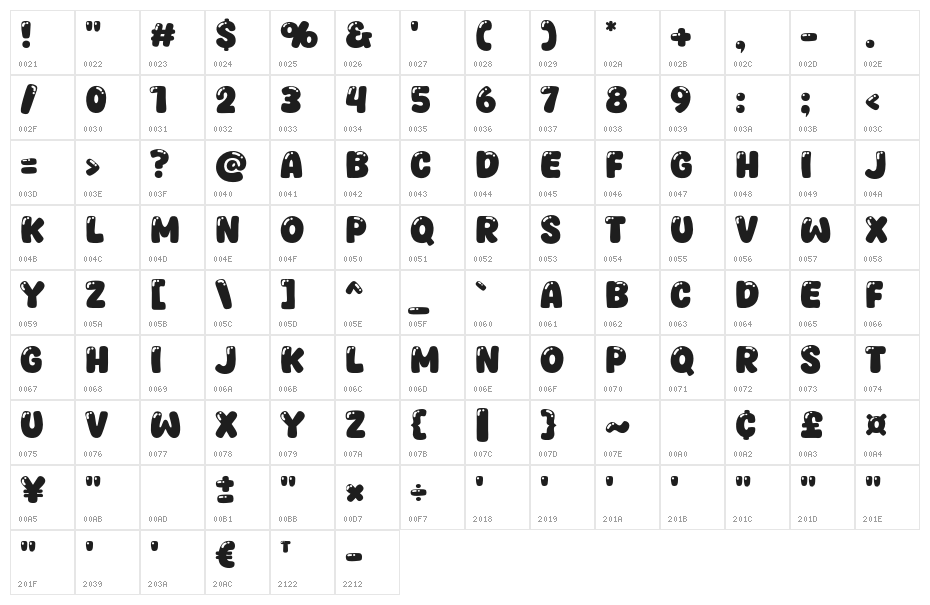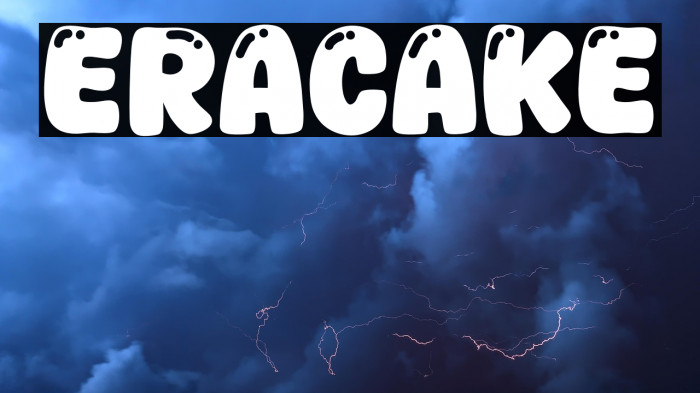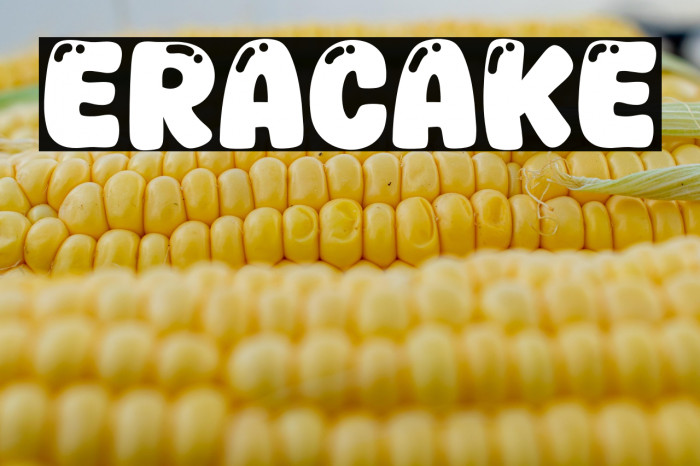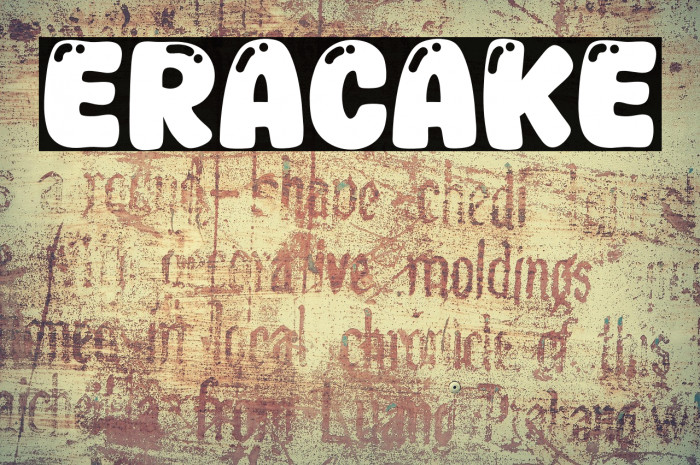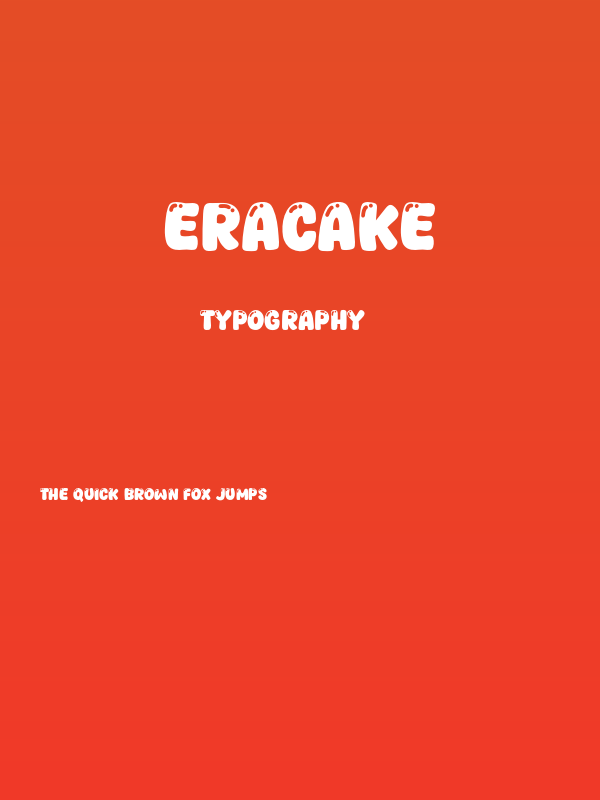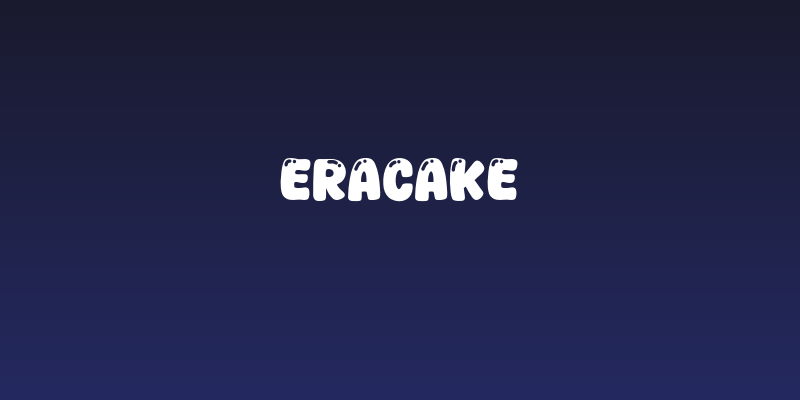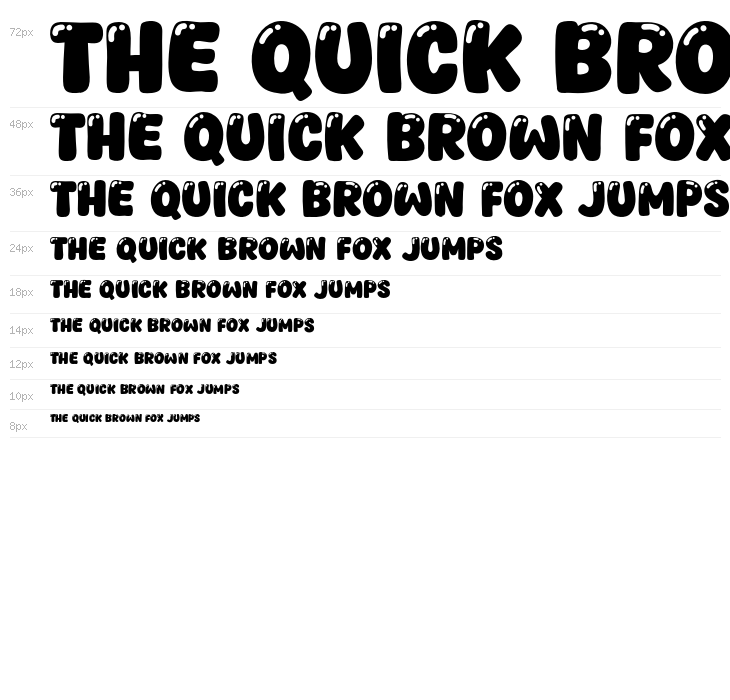
Eracake Font
Eracake Description
This playful and bold font features rounded, bubbly characters that exude a sense of fun and whimsy. The letters are thick and substantial, with a consistent stroke width that gives them a cartoonish, almost inflated appearance. Each character is adorned with small, shiny highlights that add a touch of gloss, enhancing the playful aesthetic. The font maintains a uniform height across all characters, ensuring readability while still maintaining its unique style. The numbers and special characters follow the same design principles, making them cohesive with the alphabet. This font is perfect for projects that require a lighthearted and engaging visual element.
| Overall Style | Playful, Cartoonish |
| Proposed Projects | Ideal for children's books, comic strips, playful branding, party invitations, and eye-catching posters. |